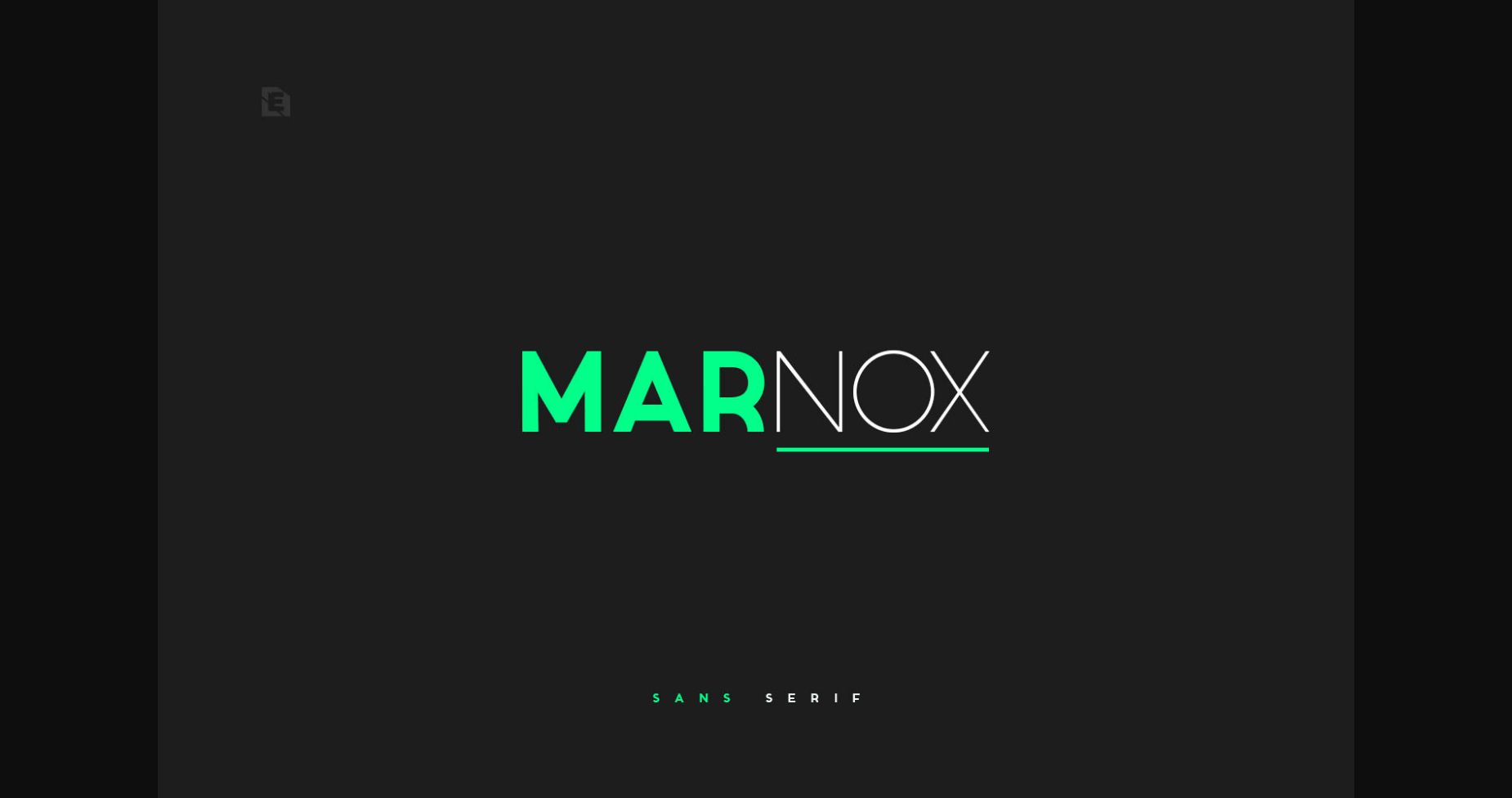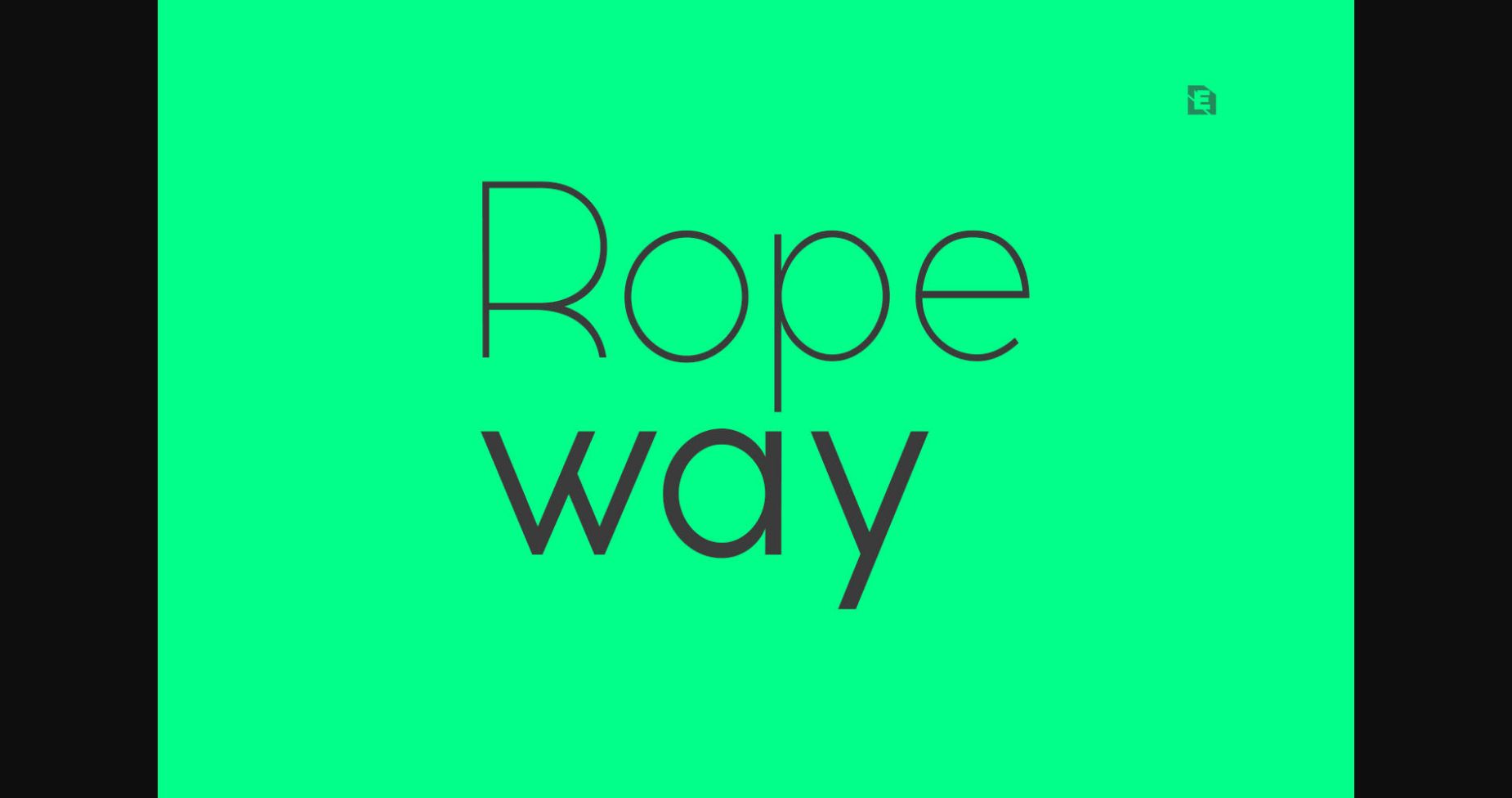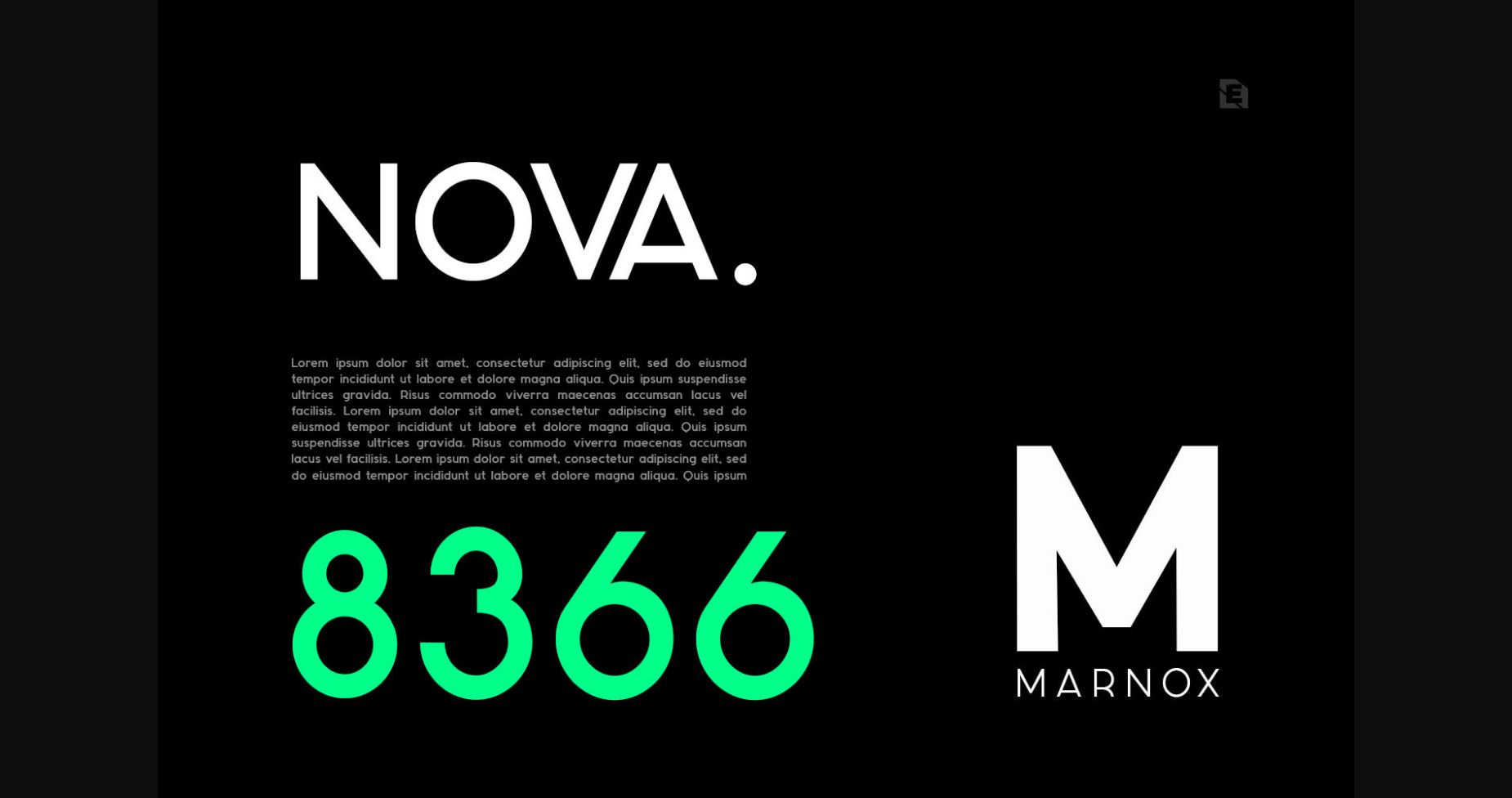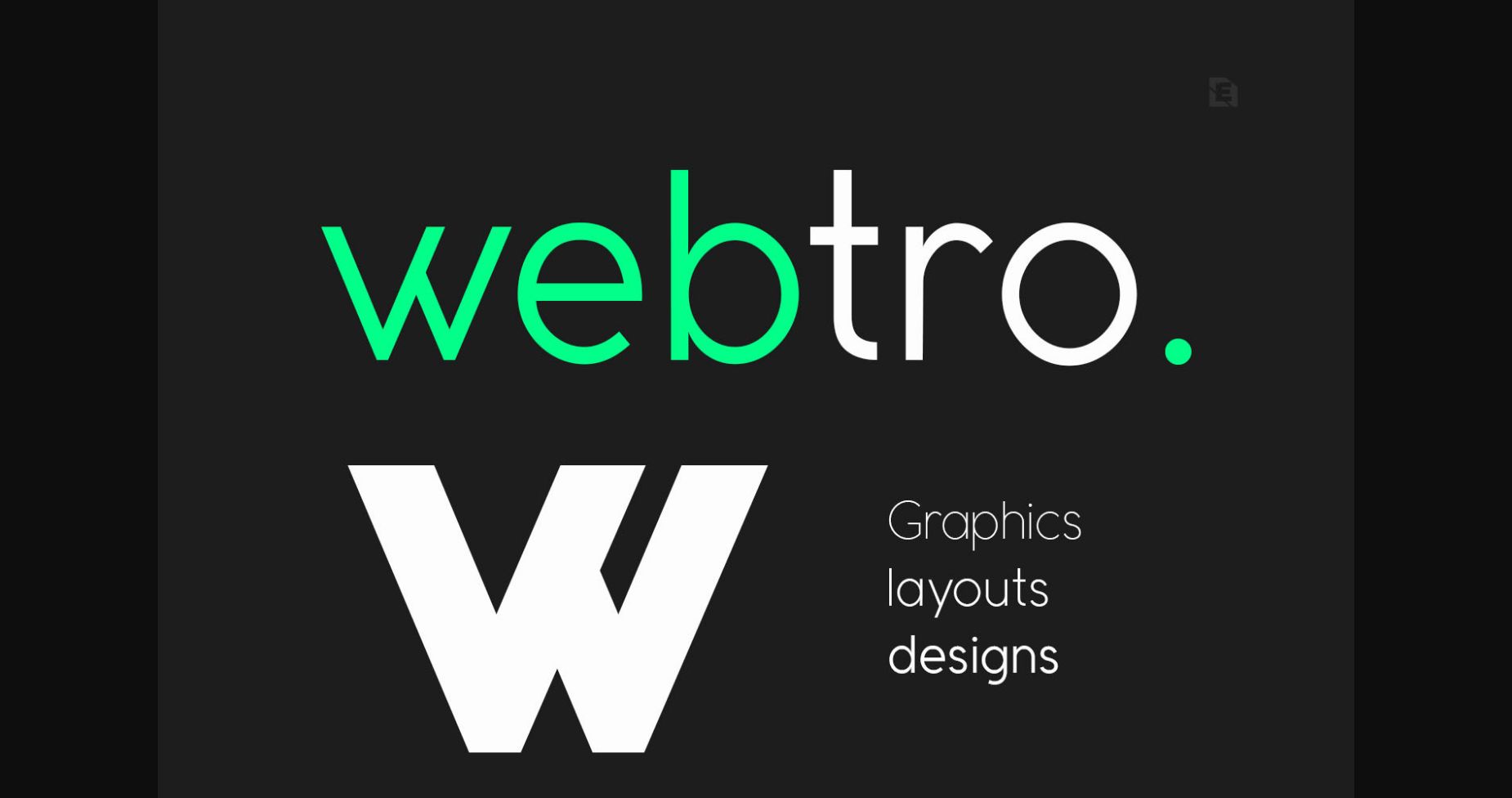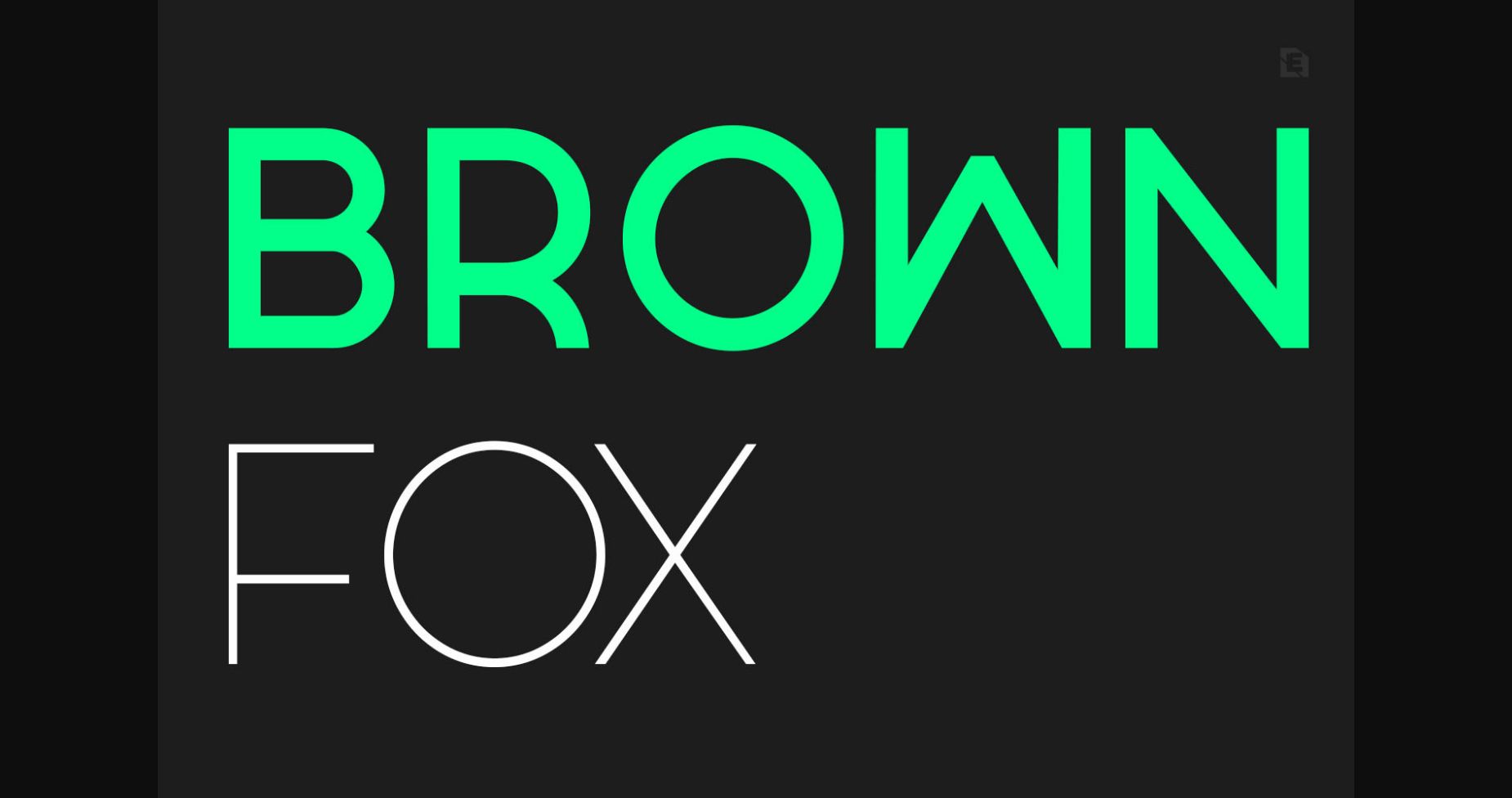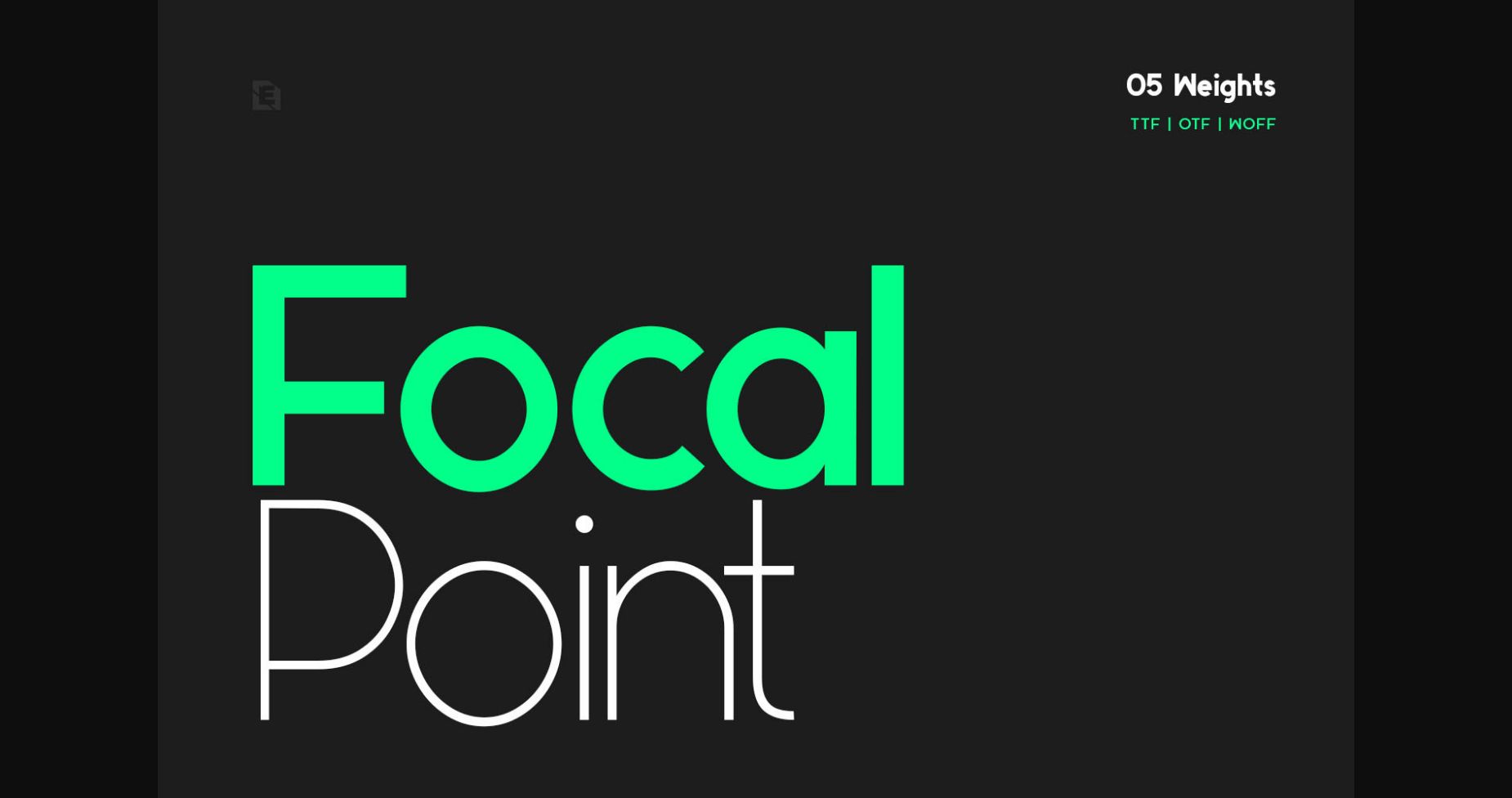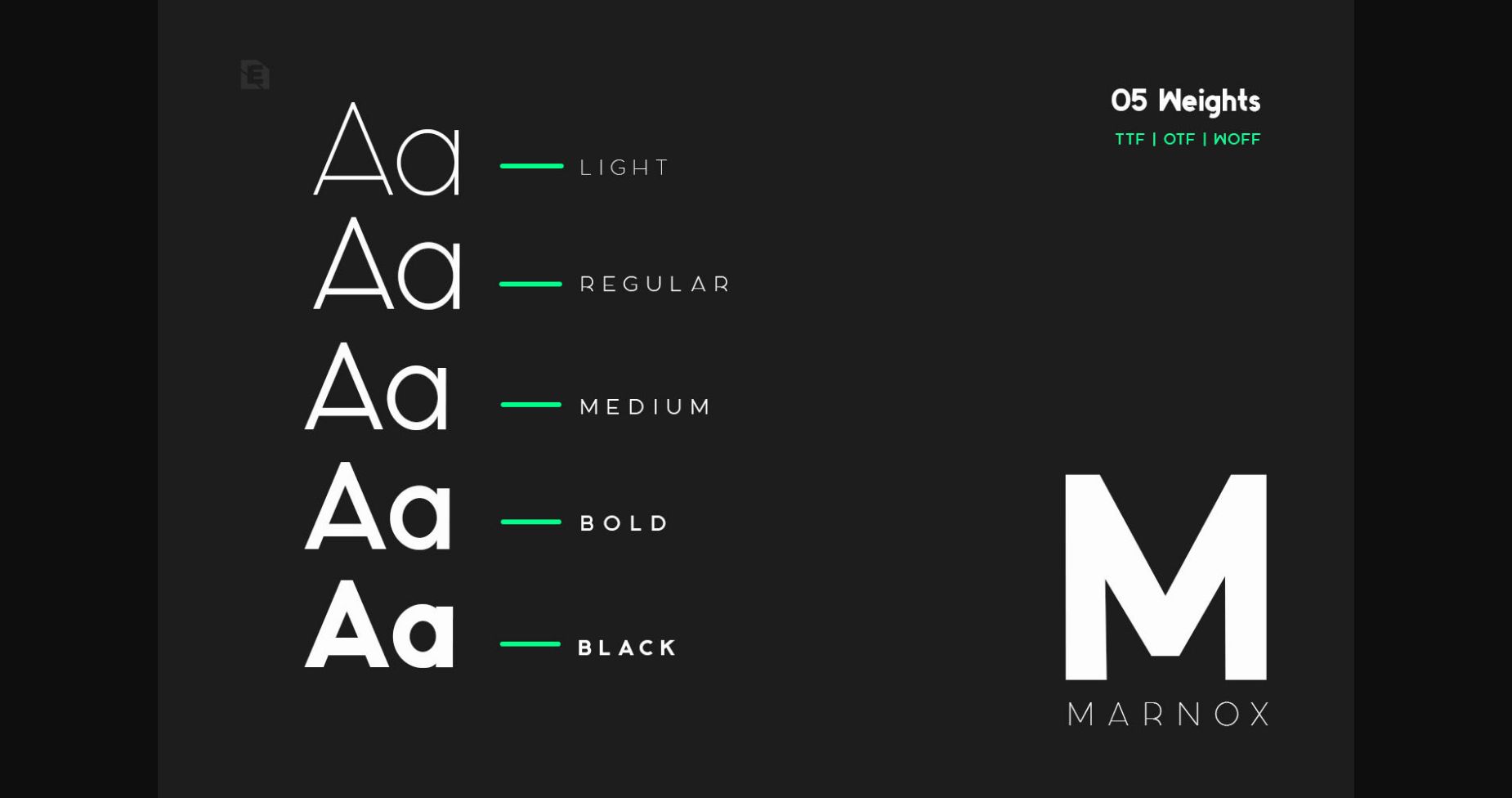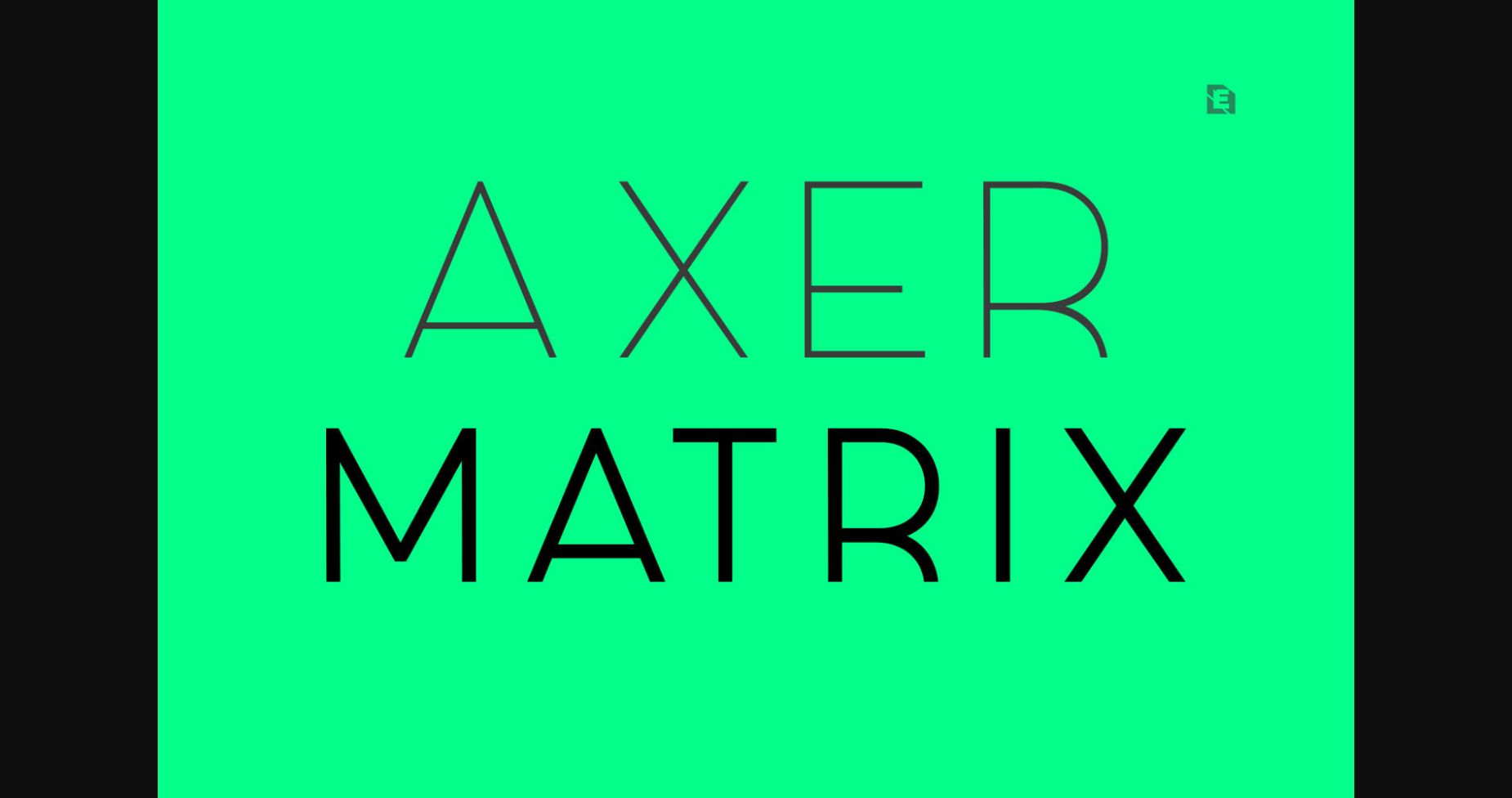
Marnox is a clean and modern sans serif font. It can easily be matched to an incredibly large set of projects, so add it to your creative ideas and notice how it makes them stand out!